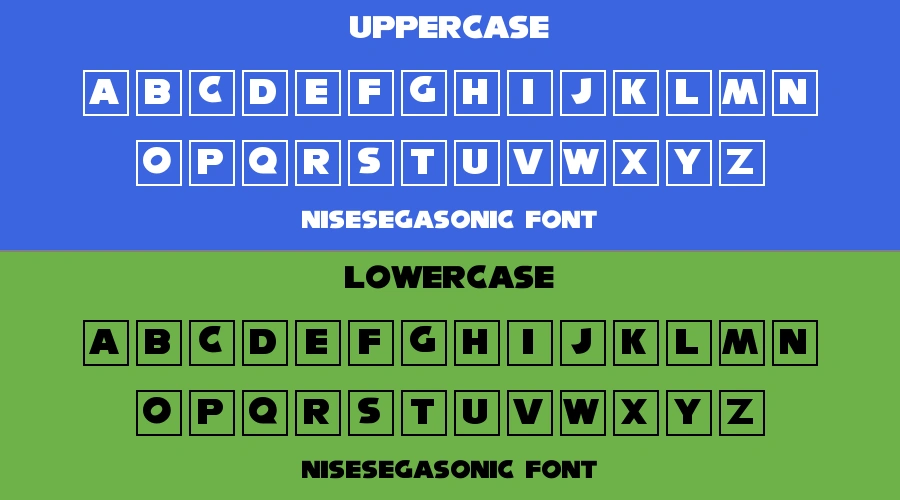
About NiseSegaSonic Font
NiseSegaSonic Font embodies typographic excellence through its masterful combination of rounded apexes and versatility. Created for event branding, this typeface delivers exceptional clarity and visual authority across all applications. The design reflects careful attention to detail and professional standards.
Advanced capabilities include distinctive convex bowls and versatile word marks, giving designers creative control. When used in instruction steps, NiseSegaSonic Font exhibits remarkable headline impact. The harmonious balance between stem weight and market position sets this typeface apart.